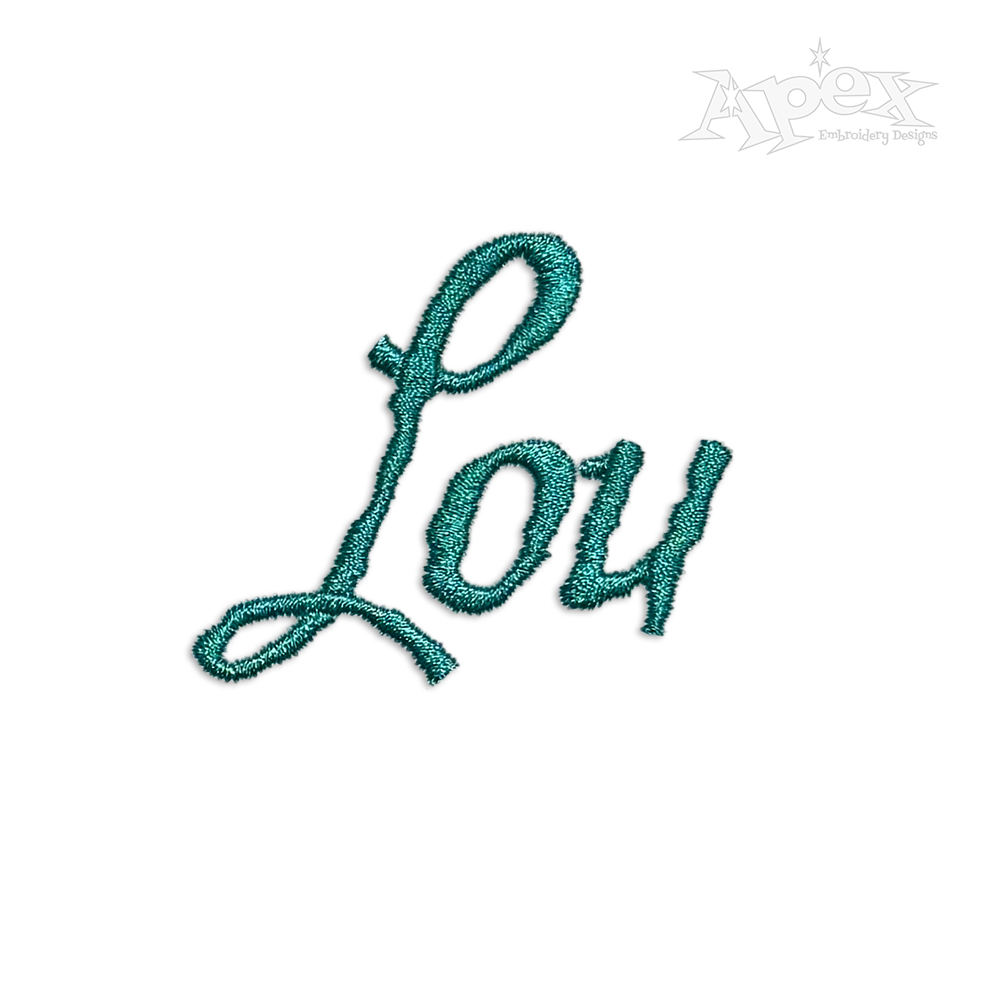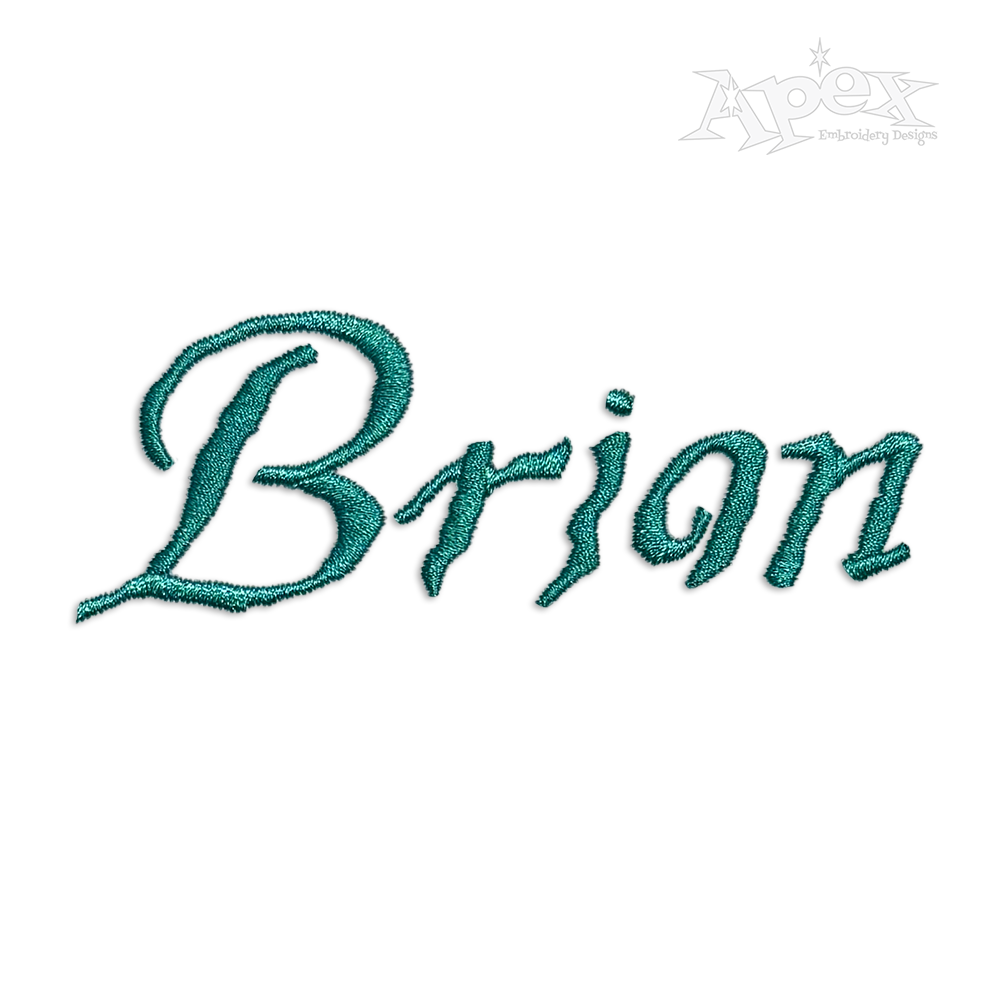
Hesperid Embroidery Font
When drawing the initial letterforms for the Hesperid Embroidery Font, we found inspiration in the mythic orchards of classical antiquity—where golden twilight casts long, sculptural shadows across timeless botanicals. We set out to design a satin stitch alphabet that feels both regally poised and gracefully modern, merging statuesque stems with subtle, organic curve transitions. Every single stitch path has been calibrated to reflect thread luster with radiant brilliance, turning custom monogramming and bespoke personalization into an elevated work of textile art.
Hesperid Embroidery Font Craft & Letterform Details
True embroidery artistry is found in how light plays across the surface of the thread. For Hesperid, we meticulously plotted the stitch direction along every curve, ensuring the satin flow catches ambient light rather than flattening out. The capitals stand tall with dignified, neoclassical posture, balanced by lowercase letters designed with flowing ascenders and clean, uncluttered descenders.
Beneath the lustrous top stitching lies a dual-action underlay architecture. By laying a foundational grid beneath the primary satin columns, we eliminated fabric rippling and tunneling without stiffening the fabric. Stems taper with featherweight elegance at their terminals, ensuring crisp edge definition even on textured weaves. The result is an heirloom embroidery font that sews out with buttery smoothness and crisp, unmistakable elegance every time your needle strikes the hoop.